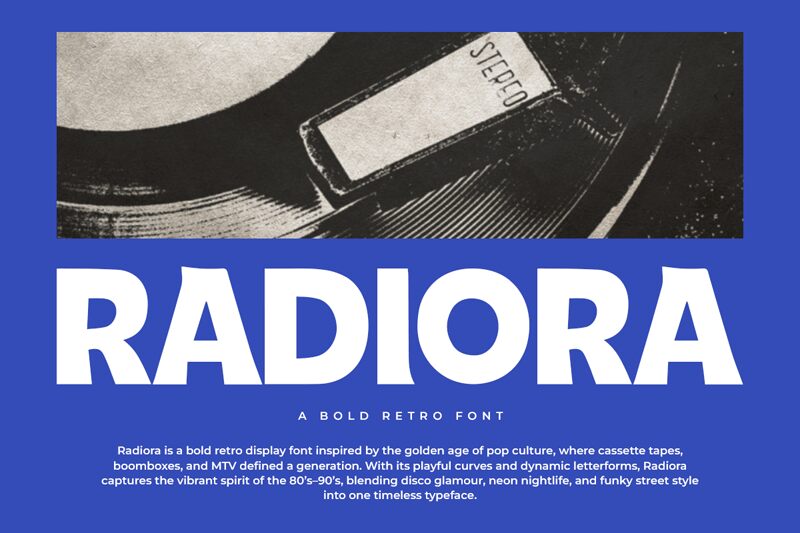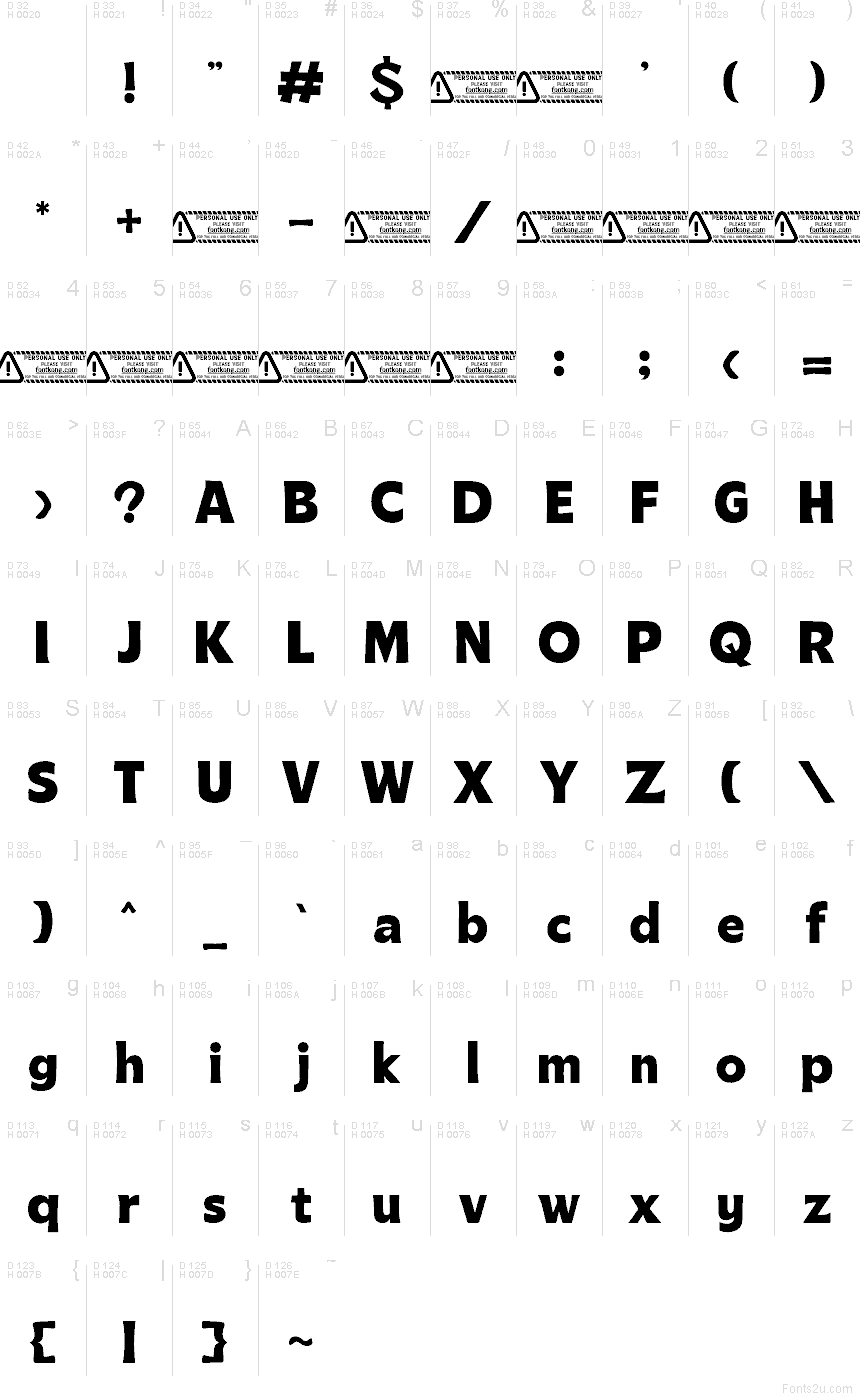
Radiora font by Kong Font is a free retro decorative font, and the typeface hits like a bold vinyl sticker—chunky, soft-cornered shapes with sly little bite-marks that keep the rhythm lively. The heavy strokes feel inky and confident, but the playful cut-ins stop it from turning into a brick, so headlines stay readable even when you crank the size.
Using Radiora on posters, album covers, café menus, streetwear graphics, YouTube thumbnails, retro event flyers, and logo locks gives your words instant ‘70s swagger. Pair this free font with a clean geometric sans for the small stuff, and let Radiora handle the big shouty lines where the personality belongs.